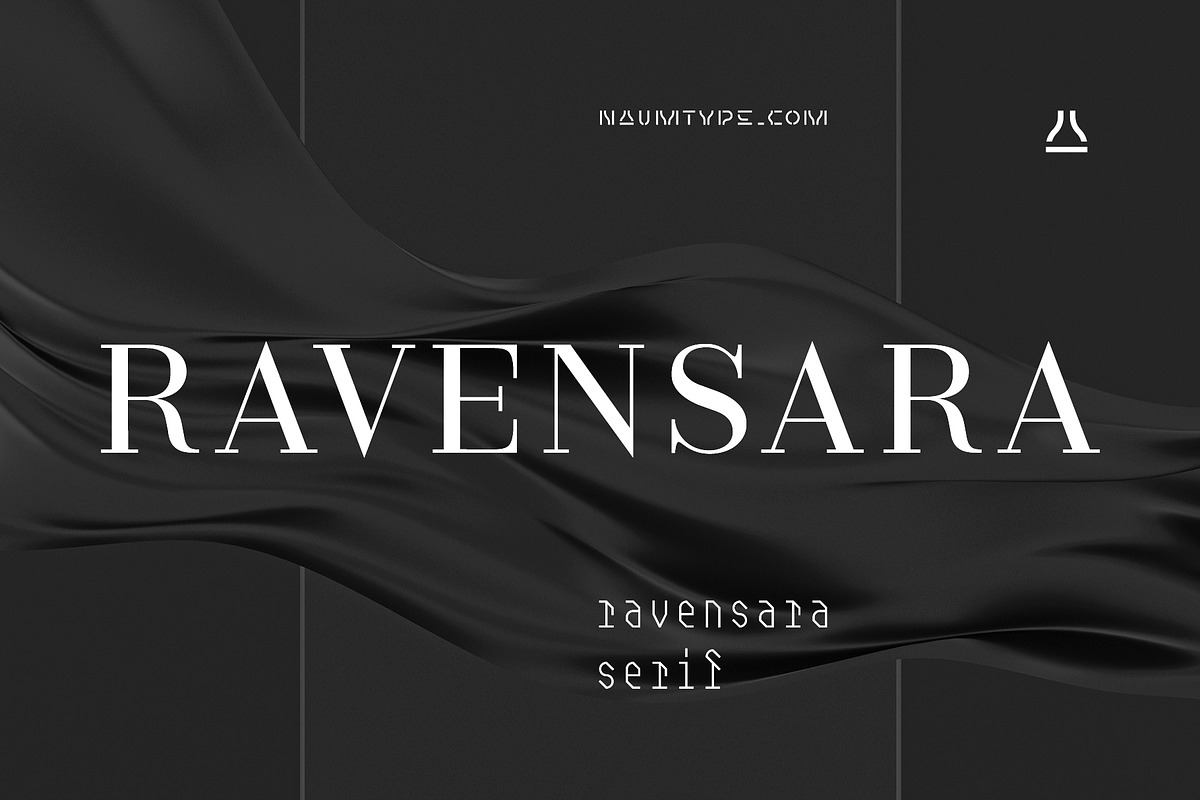
Ravensara Serif – 7 Fonts Free Download is a sophisticated typeface family that combines classic serif elegance with modern versatility. Please note, you are required to purchase this font family for commercial use. It is available for free download for testing and personal projects only.
With seven unique weights and styles, Ravensara Serif is perfect for editorial layouts, branding, packaging, websites, book covers, and elegant logo design. Its refined letterforms, high contrast, and beautiful rhythm make it ideal for both display and body text, offering flexibility without sacrificing style.
By choosing Ravensara Serif – 7 Fonts Free Download, you're getting a complete and high-quality font family that installs easily and works seamlessly across all major design platforms. Whether you're designing for luxury, fashion, or storytelling, Ravensara delivers timeless typography with modern polish.